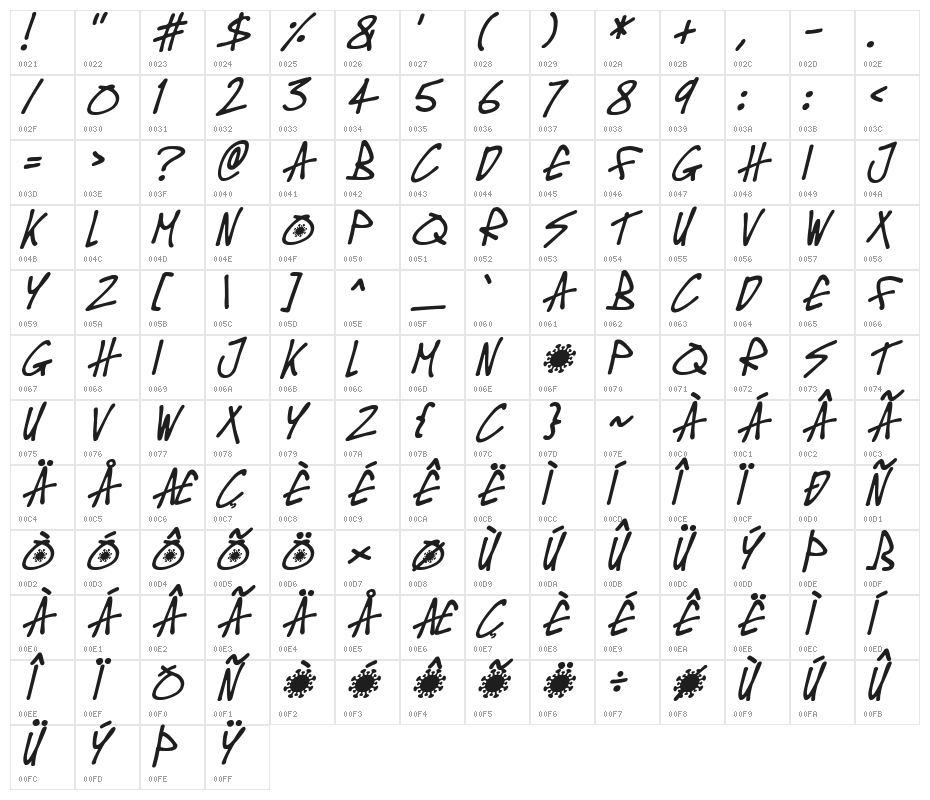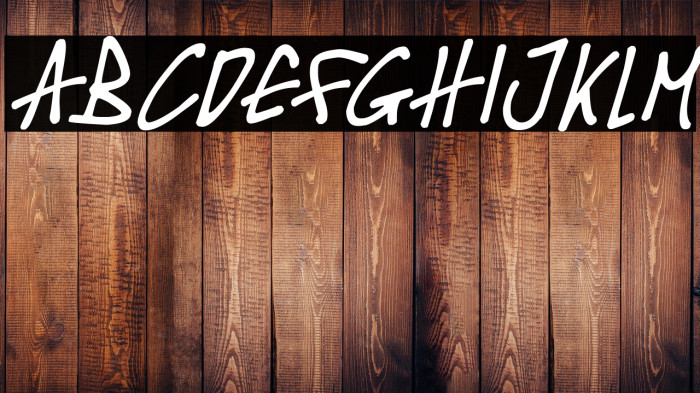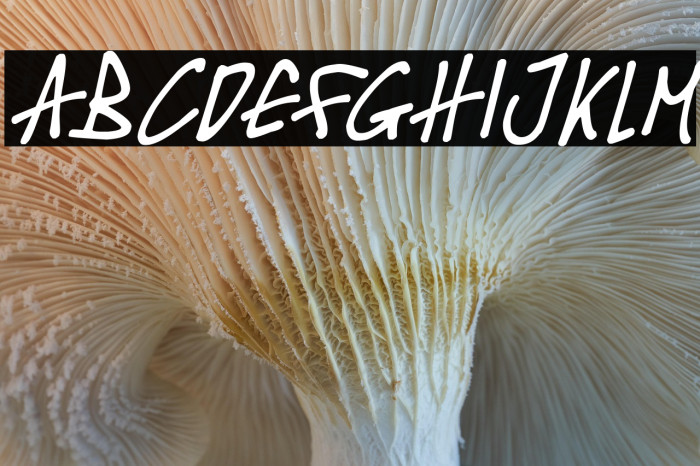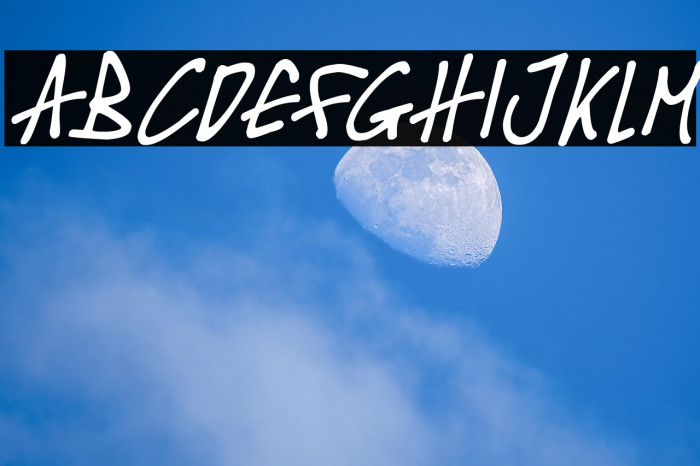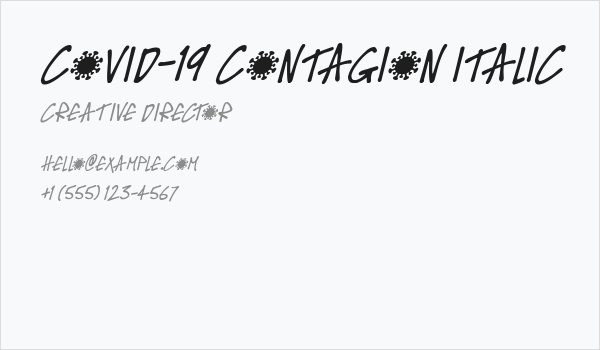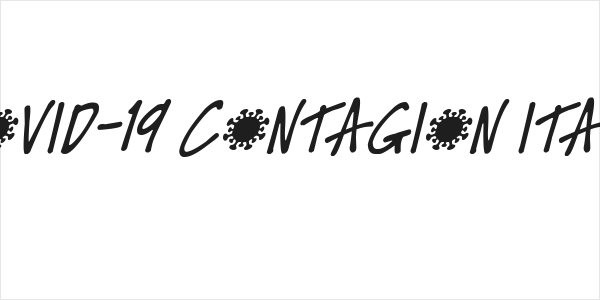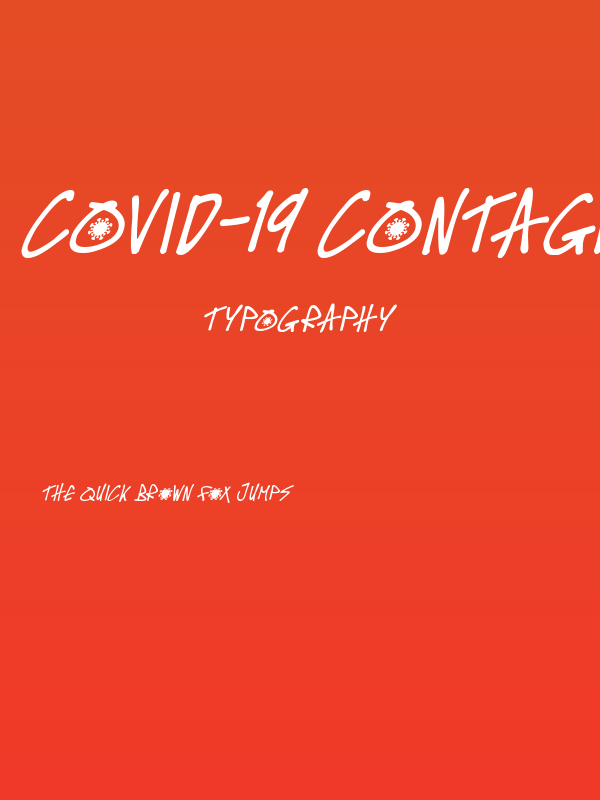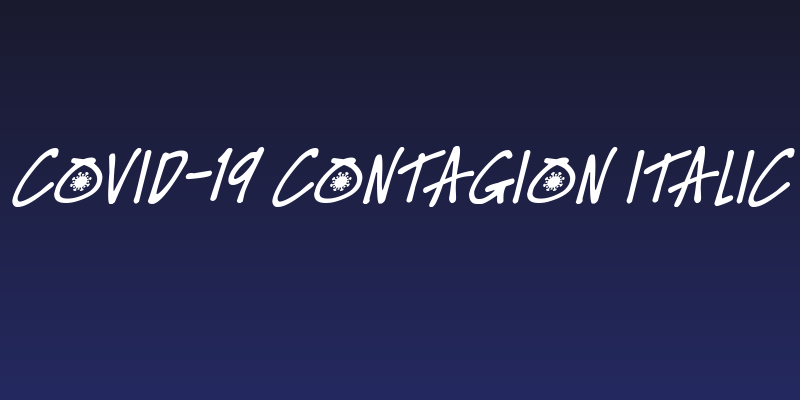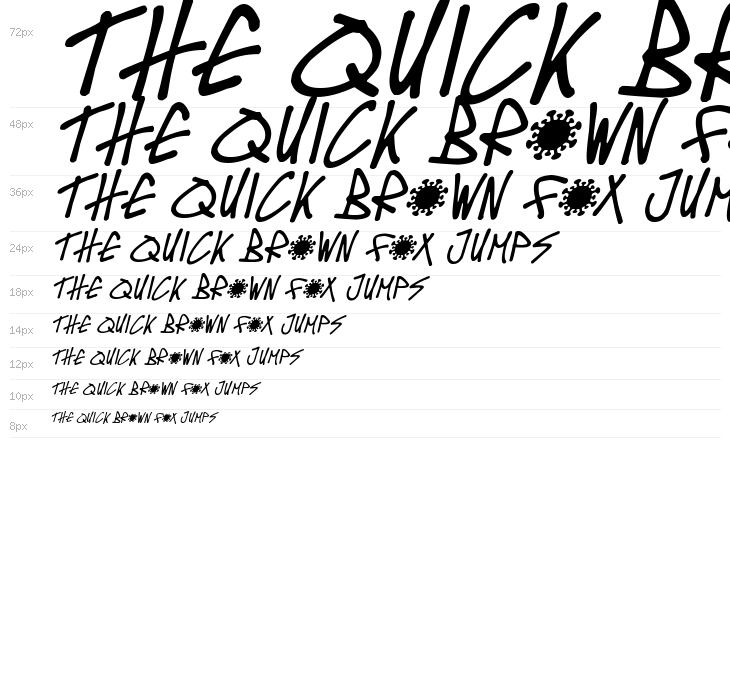
Covid-19 Contagion Italic Font
Covid-19 Contagion Italic Description
This font features a dynamic and energetic handwritten style, characterized by its slanted, italicized form. The strokes are bold and fluid, giving it a sense of motion and urgency. The letters are slightly irregular, adding a personal and informal touch. The font includes a unique element with virus-like symbols replacing the letter 'O', enhancing its thematic relevance. The numerals and special characters maintain the same lively and bold style, ensuring consistency across all characters.
| Use Case | Headlines, Posters, Thematic Designs |
| Proposed Projects | Ideal for projects related to health awareness campaigns, educational materials, or creative posters that require a bold and thematic visual impact. |